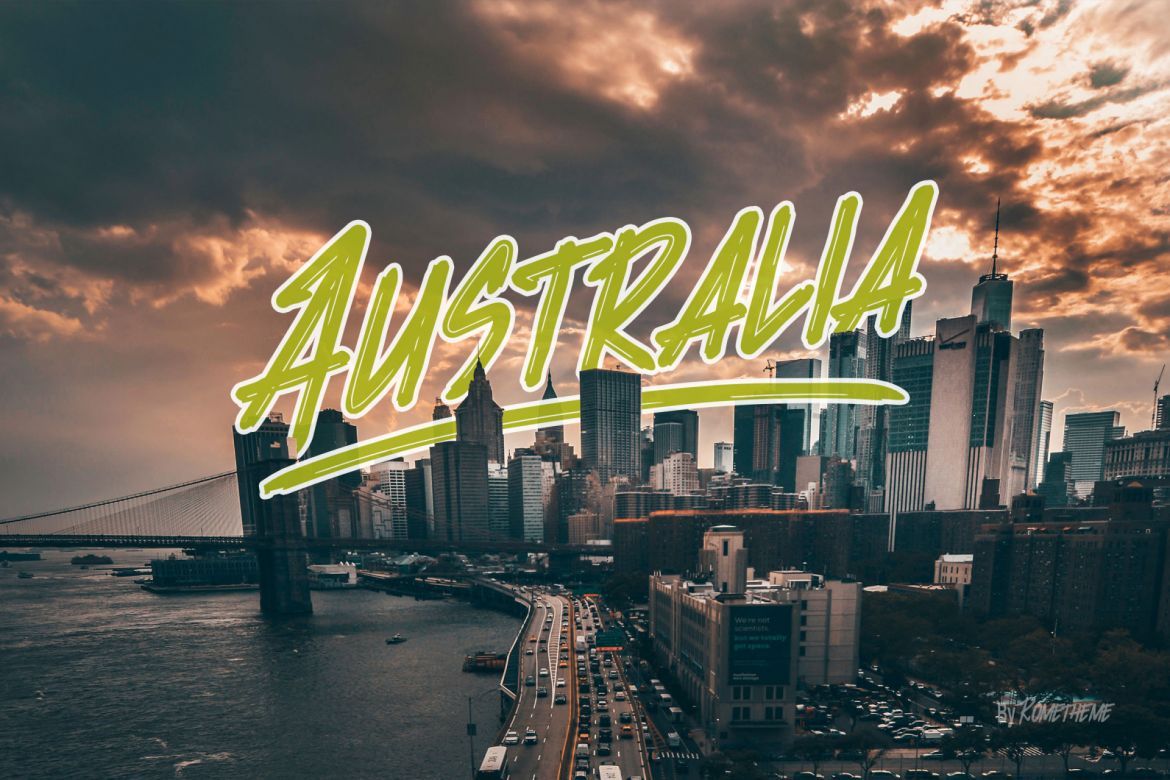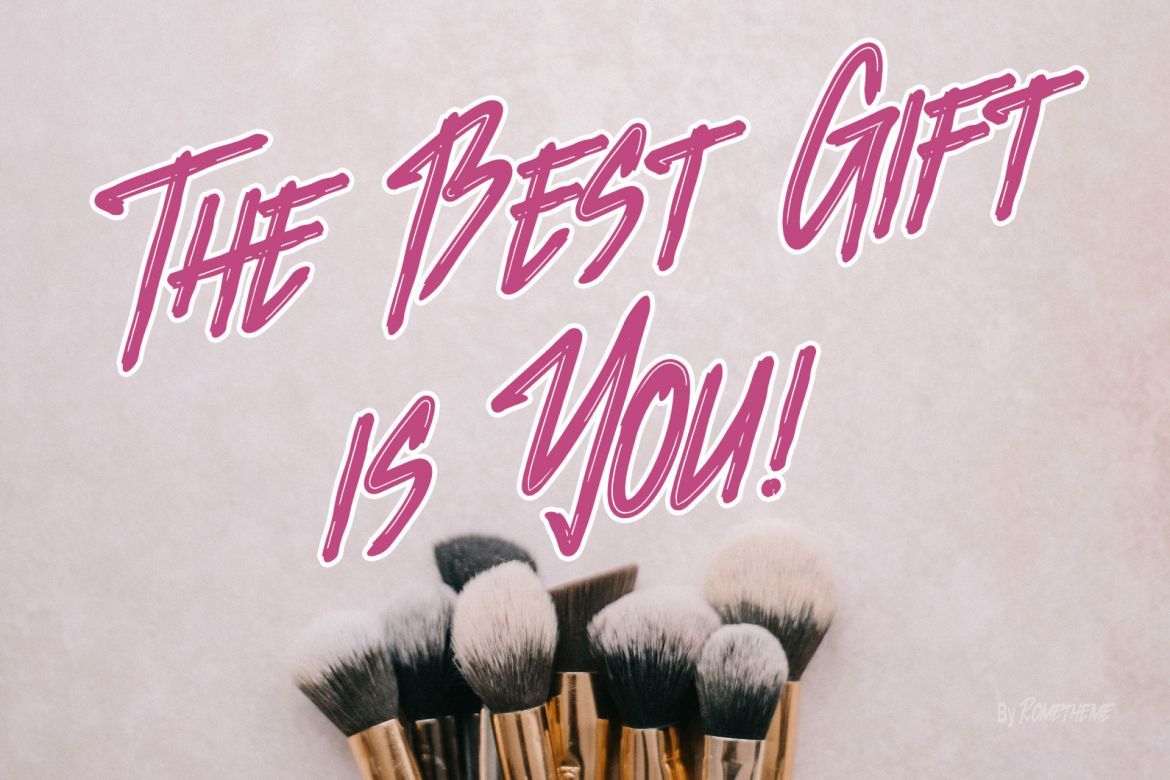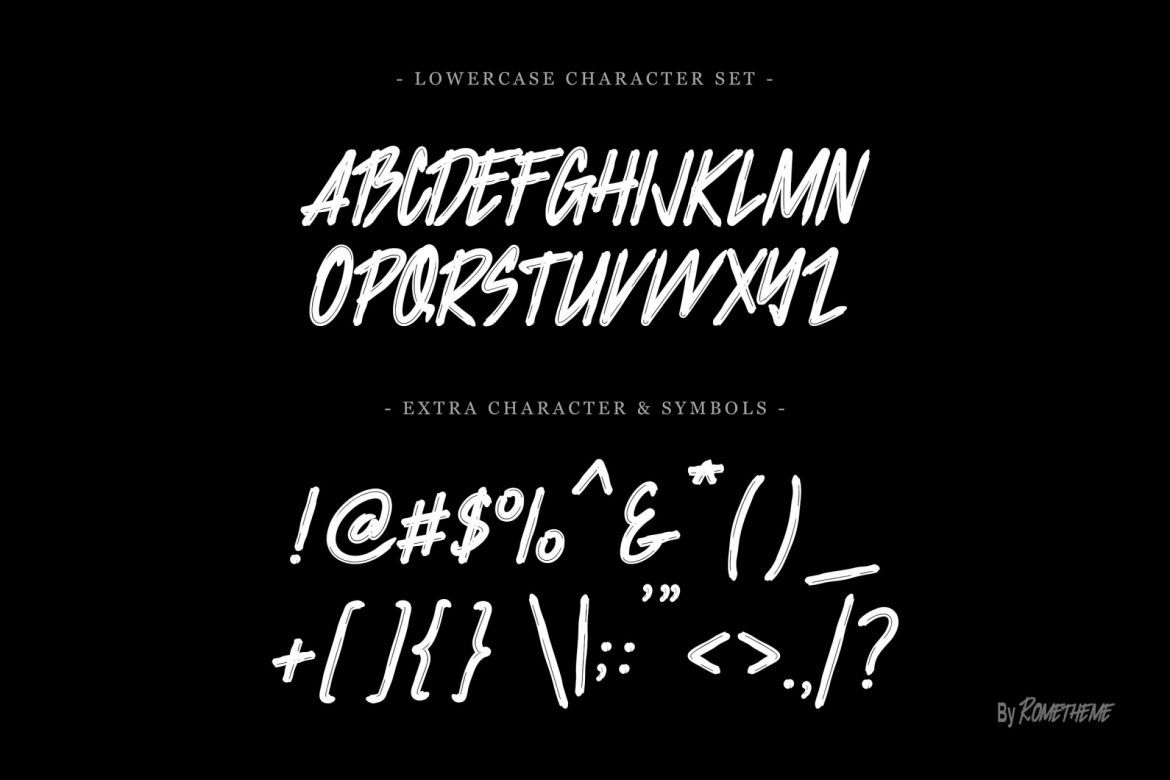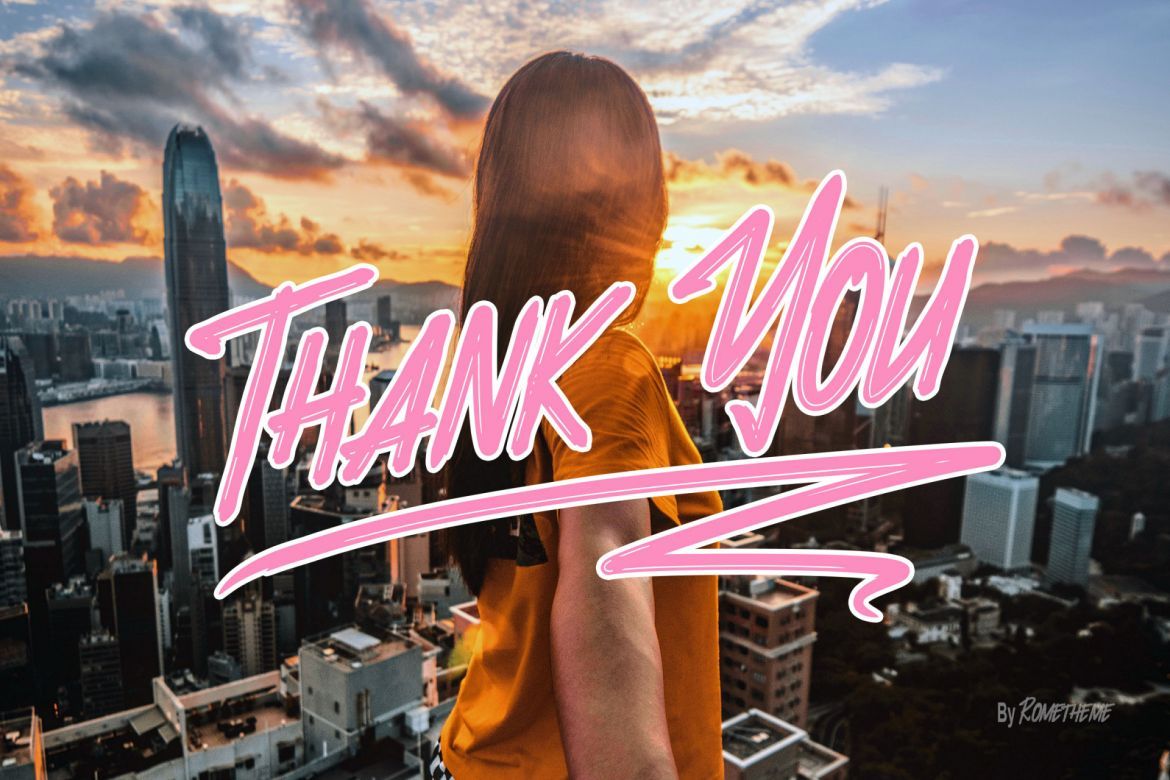
Jacklyen Font
Jacklyen is a modern hand-drawn typeface. this font looks elegant, classy, readable, stylish, catchy and easy to use.
Jacklyen is the best choice for your professional design projects, including signature, watermark on photography, quotes, wedding, fashion, letter, invitation, business card, logo, branding, magazines, social media, advertisements, product designs, and much other design projects.
• the perfect font choice for powerful projects – watermarks, signatures, photography, logos, business cards, quotes, album covers.